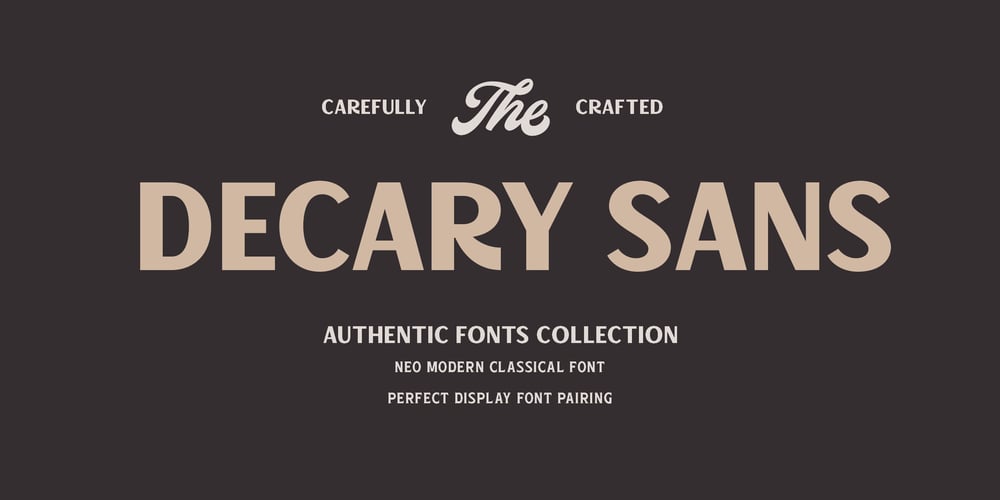
Decary Sans Font Family was designed by Måns Grebäck and published by Mans Greback. Decary Sans contains 6 styles and family package options. Decary Sans is a new vintage typeface. A sans-serif lettering provided in the styles Light, Regular and Bold, and each weight as Italic. Perfect for a logotype or headline, use this modern retro type to express genuine tradition while keeping the design up-to-date. The font is built with advanced OpenType functionality and has a guaranteed top-notch quality, containing stylistic and contextual alternates, ligatures and more features; all to give you full control and customizability. It has extensive lingual support, covering all Latin-based languages, from Northern Europe to South Africa, from America to South-East Asia. It contains all characters and symbols you’ll ever need, including all punctuation and numbers.